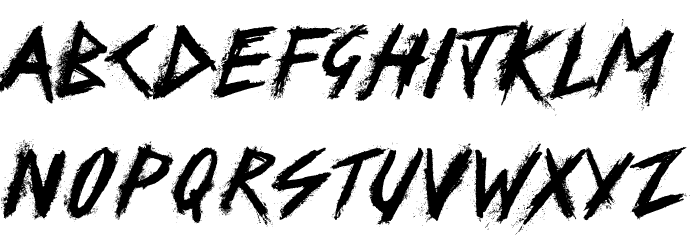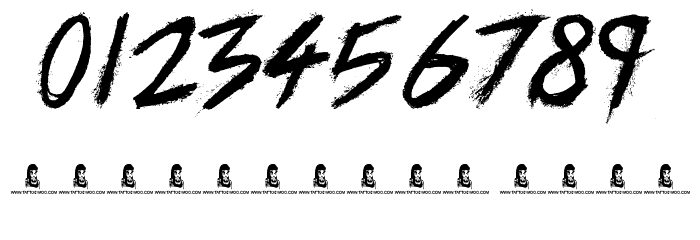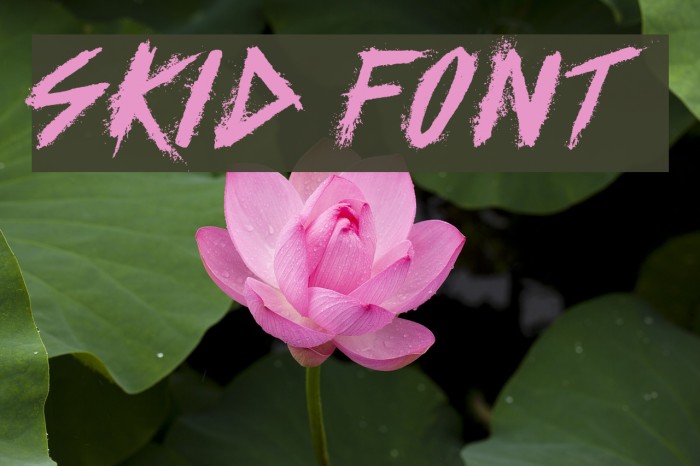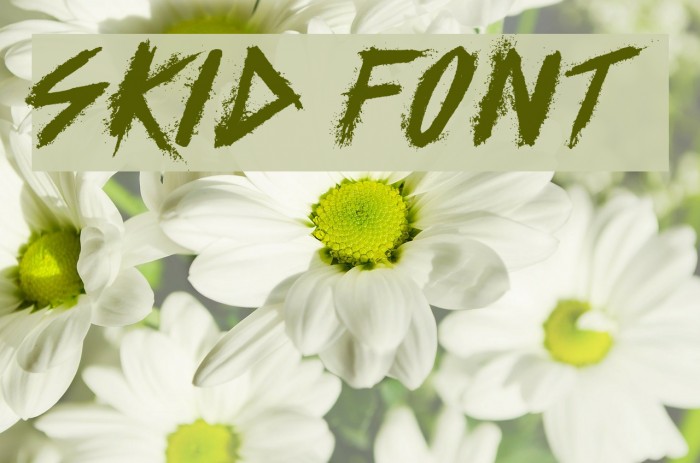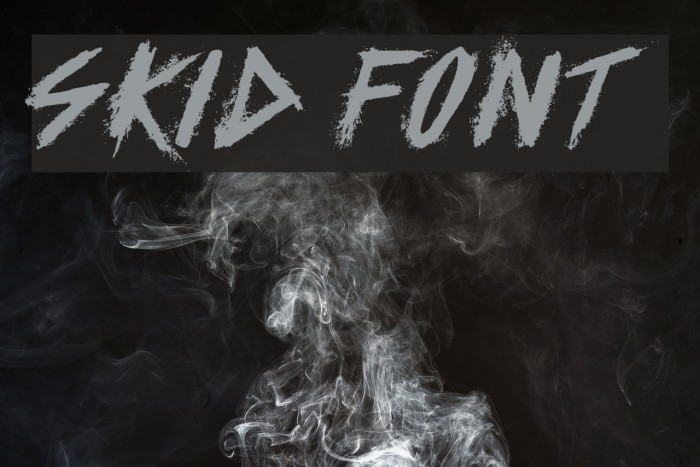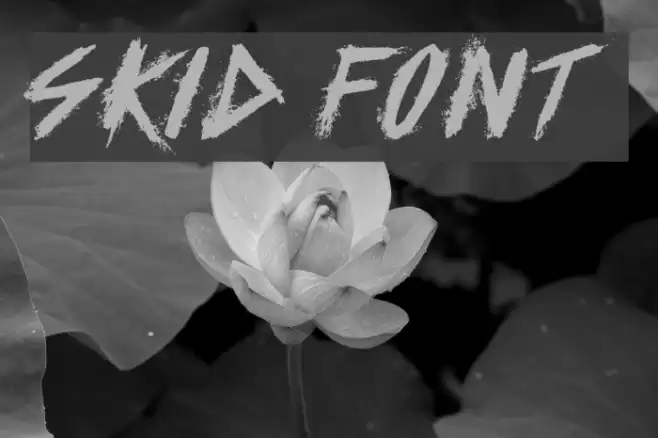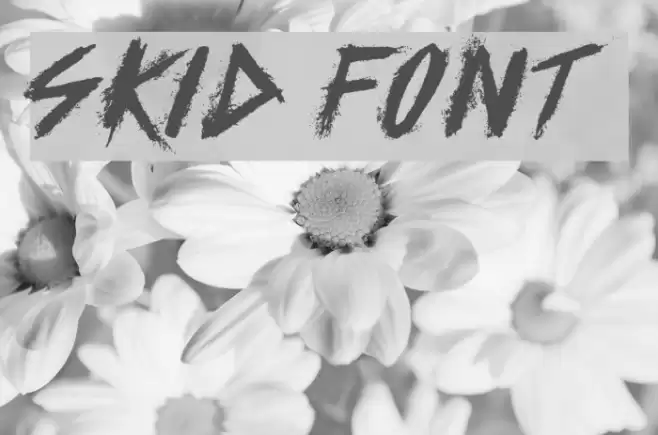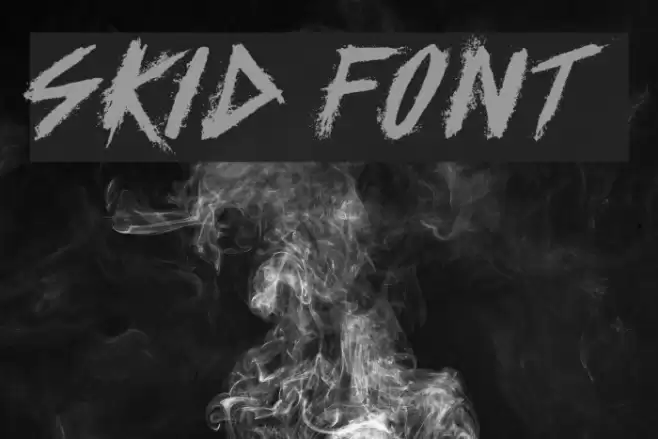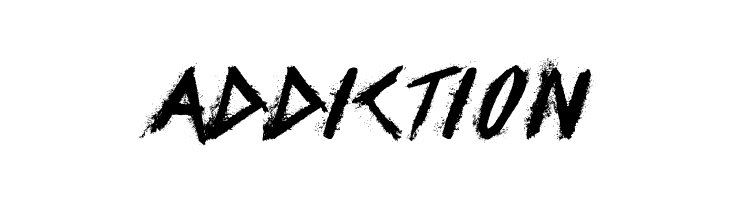
SKID Font
This font features a bold, brush-stroke style that exudes energy and dynamism. Each character is crafted with a rough, textured appearance, reminiscent of graffiti or street art. The letters have a slightly slanted orientation, adding to the sense of movement and urgency. The strokes are uneven, with varying thickness, creating a raw and edgy aesthetic. This font is ideal for projects that require a strong, impactful visual presence, such as posters, album covers, or branding for edgy, modern products. The unique texture and style make it stand out, ensuring that any text set in this font will capture attention.
A bold, brush-stroke font with a dynamic, textured appearance.
- Proposed Projects: Ideal for posters, album covers, street art-inspired designs, and modern branding.
- Overall Style: Modern, Edgy